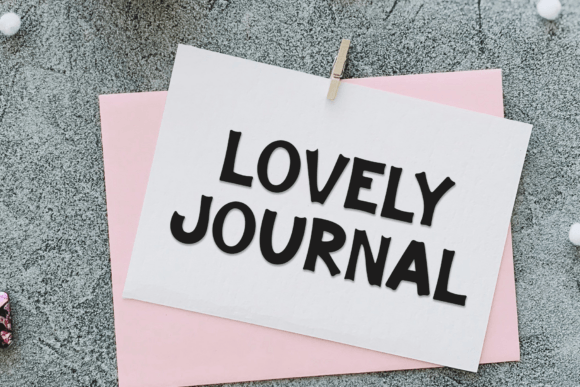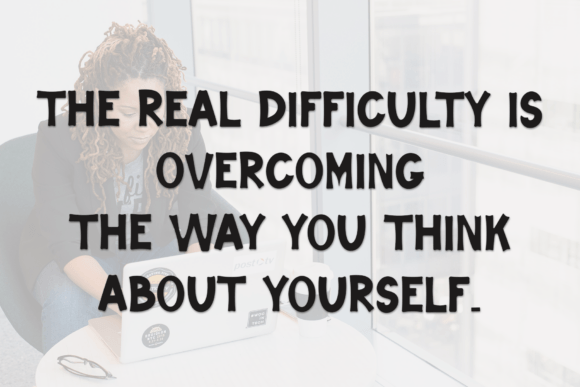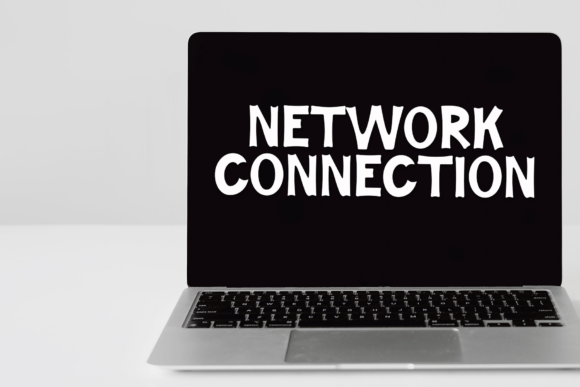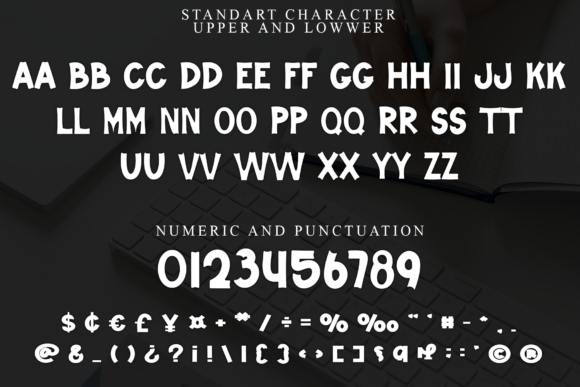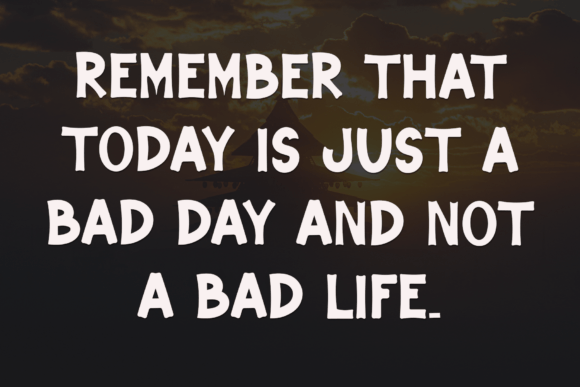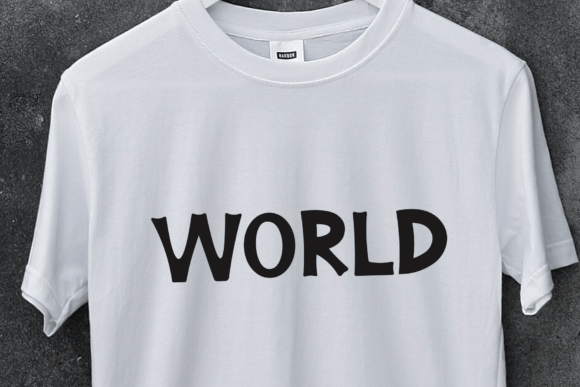
Introduction to Santa Treatment Font
Have you ever stared at a blank design project, feeling the pressure to create something truly unique and eye-catching? It’s a familiar feeling for designers and non-designers alike – the need to stand out from the crowd and make a lasting impression. As you begin to brainstorm ideas, your mind starts racing with possibilities, but it’s often the smallest details that make all the difference.
Enter the Santa Treatment Font – a game-changing display font that’s sure to elevate any design project. Its bold, playful style is the perfect addition to titles, posters, and logos, making it an invaluable resource for designers of all levels.
Whether you’re working on a high-quality creative project or simply looking for a fun way to add some personality to your designs, the Santa Treatment Font is a valuable asset that’s sure to deliver. With its transparent background and free download options, you can experiment with this fantastic font without any hassle, making it the ultimate design resource for your next project.
Key Features of Santa Treatment Font
- High-quality, elegant design perfect for creative projects and design resources.
- Unique, transparent background that allows for easy layering and customization.
- Designed with a clear and legible font style, ideal for both digital and print media.
Honest Review: Santa Treatment Font
As a designer, I’m always on the lookout for high-quality design resources to elevate my creative projects. Recently, I stumbled upon the Santa Treatment Font, and I’m excited to share my honest review.
- ✨ Unique and playful design style that’s perfect for holiday-themed projects or branding.
- ✨ High quality, clear and crisp typography that’s ideal for both digital and print projects.
- ✨ Transparent background, making it easy to overlay or combine with other design elements.
- ⚠️ Limited character set, which may not be ideal for longer text-based projects.
- ⚠️ Not as versatile as some other fonts, which may limit its use in certain creative projects.
Overall, I’m impressed with the Santa Treatment Font and think it’s a great addition to any designer’s toolkit. While it may have some limitations, its unique design style and high quality make it a valuable resource for the right projects.
Santa Treatment Font
The Santa Treatment Font is a high-quality design resource perfect for your next creative project. This unique font features a transparent background, making it ideal for a variety of applications.
For the best results, use the Santa Treatment Font in conjunction with other high-quality design resources. Experiment with different font sizes, colors, and styles to create a unique look.
The Santa Treatment Font is perfect for holiday-themed designs, including Christmas cards, gift tags, and party invitations. It’s also great for adding a touch of whimsy to your branding and marketing materials.
Alternatives to Santa Treatment Font
The Winter Wonderland Font is a beautiful, elegant design resource that’s perfect for designers working on high-end creative projects. This font features a transparent background and is available for free download, making it a great option for designers on a budget. It’s ideal for use in logos, business cards, and other marketing materials.